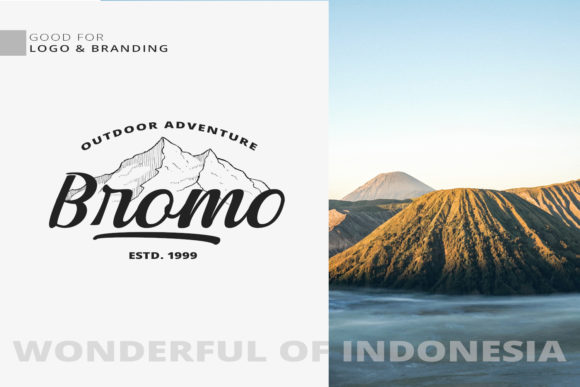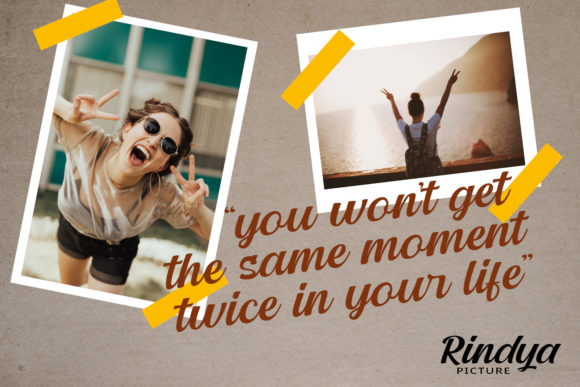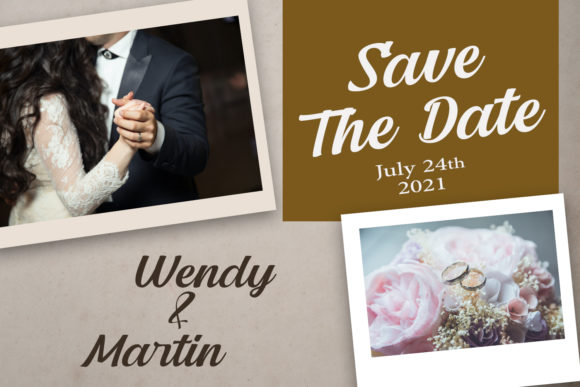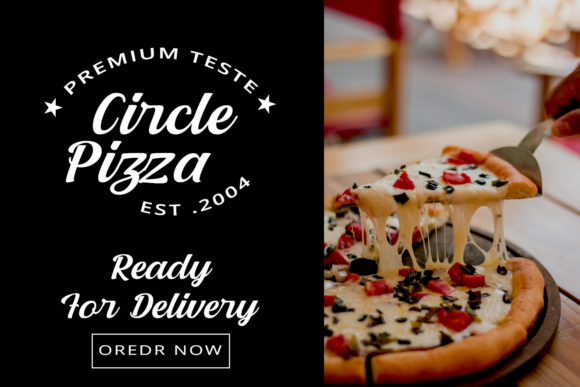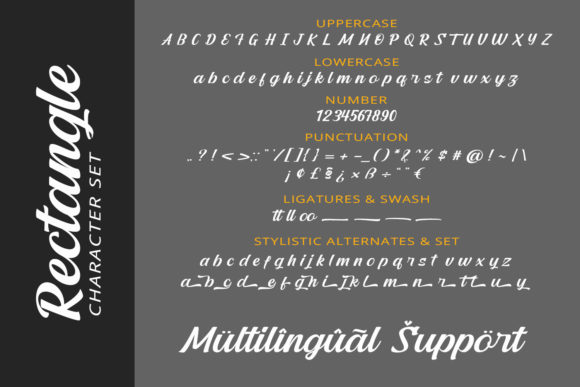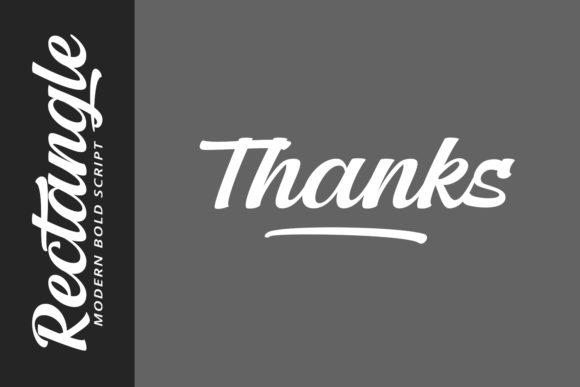
Introduction to Rectangle Font
Do you remember that moment when you’re brainstorming ideas for a new project and suddenly, the perfect font pops into your mind? It’s like a spark of creativity that ignites the entire design process. For many designers, that moment is often linked to the Rectangle Font – a modern and bold handwritten font that adds a touch of sophistication to any creative project.
With its strong, confident, and dynamic feel, Rectangle Font is a valuable resource for designers looking to elevate their high-quality designs. Whether you’re working on a project with a transparent background or a complex layout, this font is sure to make a statement. And the best part? It’s available for free download, making it an accessible design resource for creatives of all levels.
Key Features of Rectangle Font
- High-quality, vector-based design for crisp and clear rendering
- Transparent background for easy integration into creative projects
- Unique, modern design suitable for a variety of creative projects, from logos to graphics
Honest Review: Rectangle Font
I’ve been experimenting with the Rectangle Font for a creative project and I have to say, it’s a great addition to my design resource library. ✨ The high quality and crisp lines make it perfect for any design.
One of the things I love about the Rectangle Font is its transparency – it has a transparent background, which makes it super easy to customize and integrate into any design. ✨ I’ve been using it for a variety of projects, from logos to icons, and it’s always delivered.
Here are some of the features that I think make the Rectangle Font stand out:
- High quality and crisp lines
Of course, no font is perfect and the Rectangle Font has a few limitations. ⚠️ For one, it’s not as extensive as some other fonts, so you may not find every symbol or glyph you need. Additionally, it’s not suitable for complex text-heavy projects.
Overall, I’m really impressed with the Rectangle Font. It’s a great design resource that’s perfect for creative projects, and its free download makes it an absolute steal. I’d definitely recommend it to any designer looking for a high-quality, versatile font.
Rectangle Font
The Rectangle Font is a high-quality design resource ideal for creative projects that require a unique and modern touch. With a transparent background, this font is versatile and can be easily customized to fit any design scheme.
Tips for Getting the Most Out of Rectangle Font
For the best results, use Rectangle Font in combination with other modern design elements, such as bold lines and bright colors. You can also experiment with different font sizes and styles to create a unique look.
The Rectangle Font is ideal for use in creative projects such as logo design, infographics, and social media graphics. It’s also a great choice for business presentations and reports that require a modern and professional look.
Alternatives to Rectangle Font
Modern Sans
Modern Sans is a sleek and modern sans-serif font that is ideal for high-quality creative projects. It features a clean and minimalist design, making it perfect for presentations, brochures, and other design resources.
When to use: Modern Sans is suitable for a wide range of applications, including logos, headings, and body text. It’s a great choice for designers who want a modern and professional look.
Comparison to Rectangle Font: Modern Sans has a more sophisticated and polished look compared to Rectangle Font, making it a better choice for high-end creative projects.
Open Sans is a versatile and highly readable sans-serif font that is perfect for a variety of creative projects. It features a clean and transparent background, making it ideal for use on websites, apps, and other digital design resources.